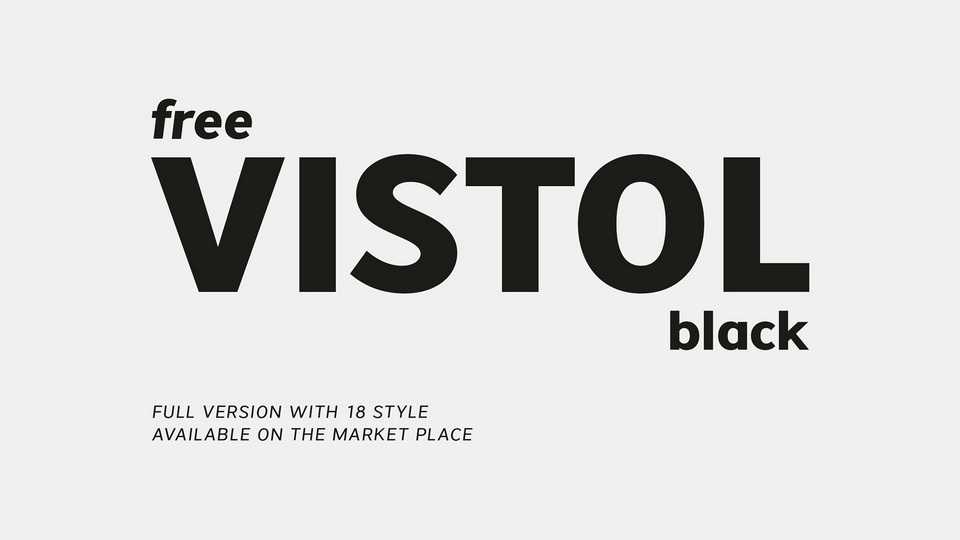
Download Vistol Sans font, is a neo-grotesque sans serif typeface. Low-contrast stroke makes Vistol Sans suitable for printing, packaging, articles, titles, editorials, publishing, logos, branding, small or large text usage.